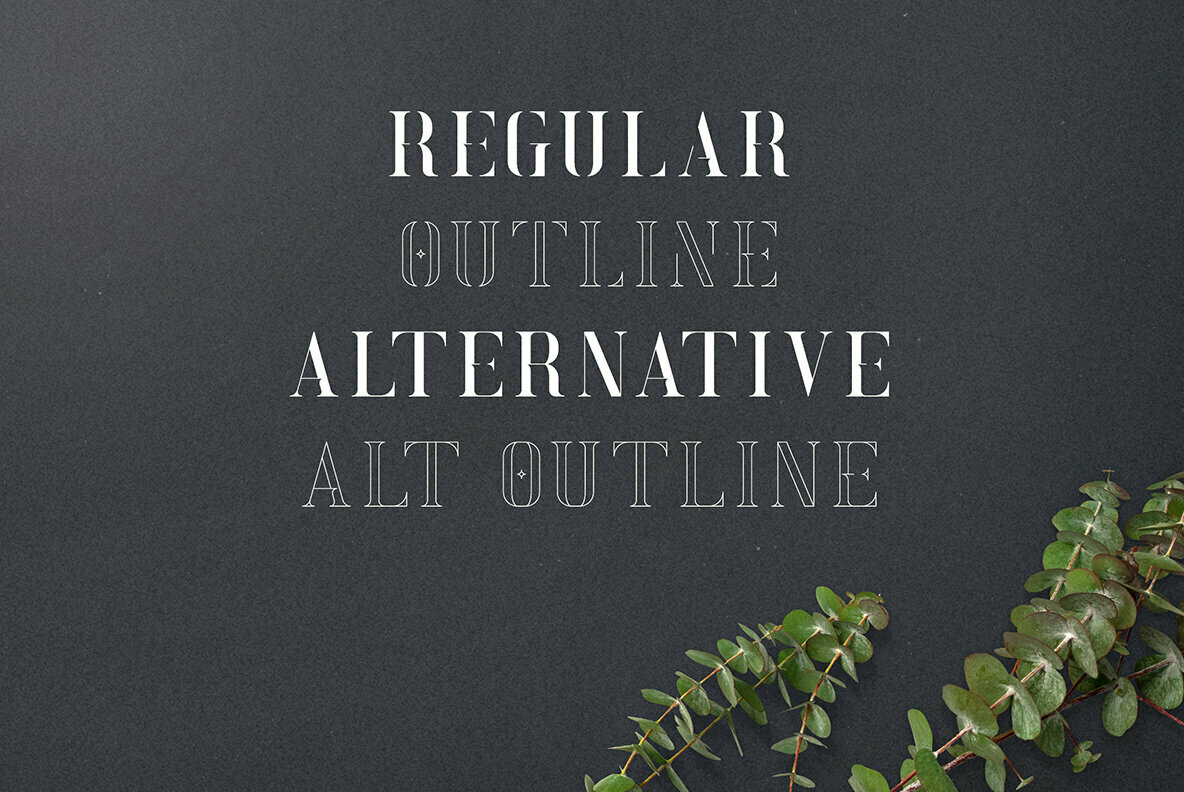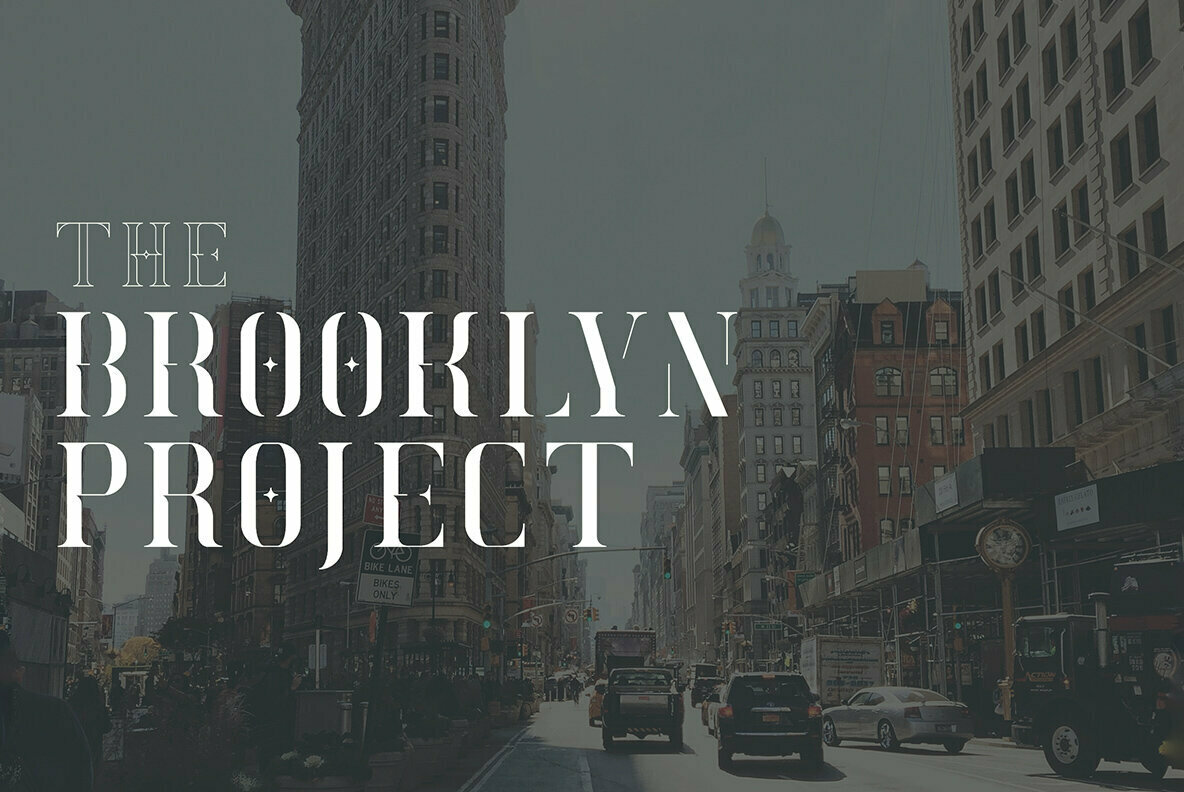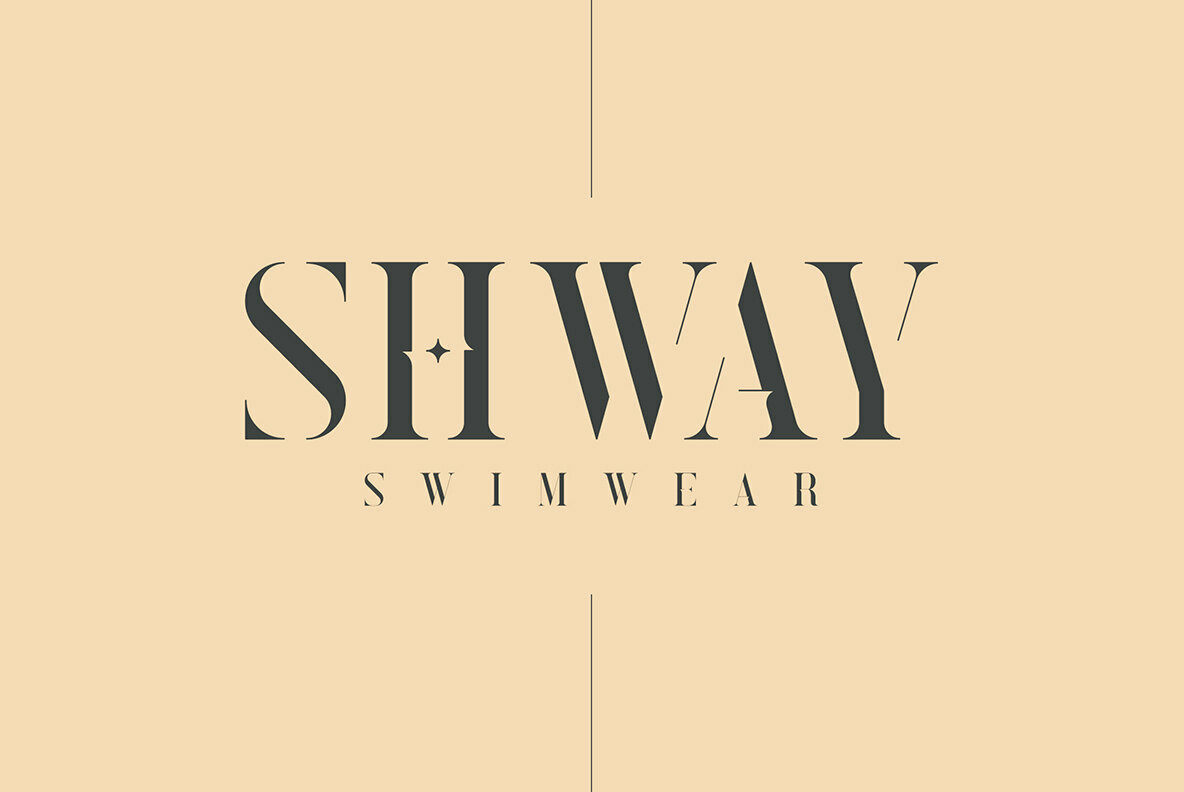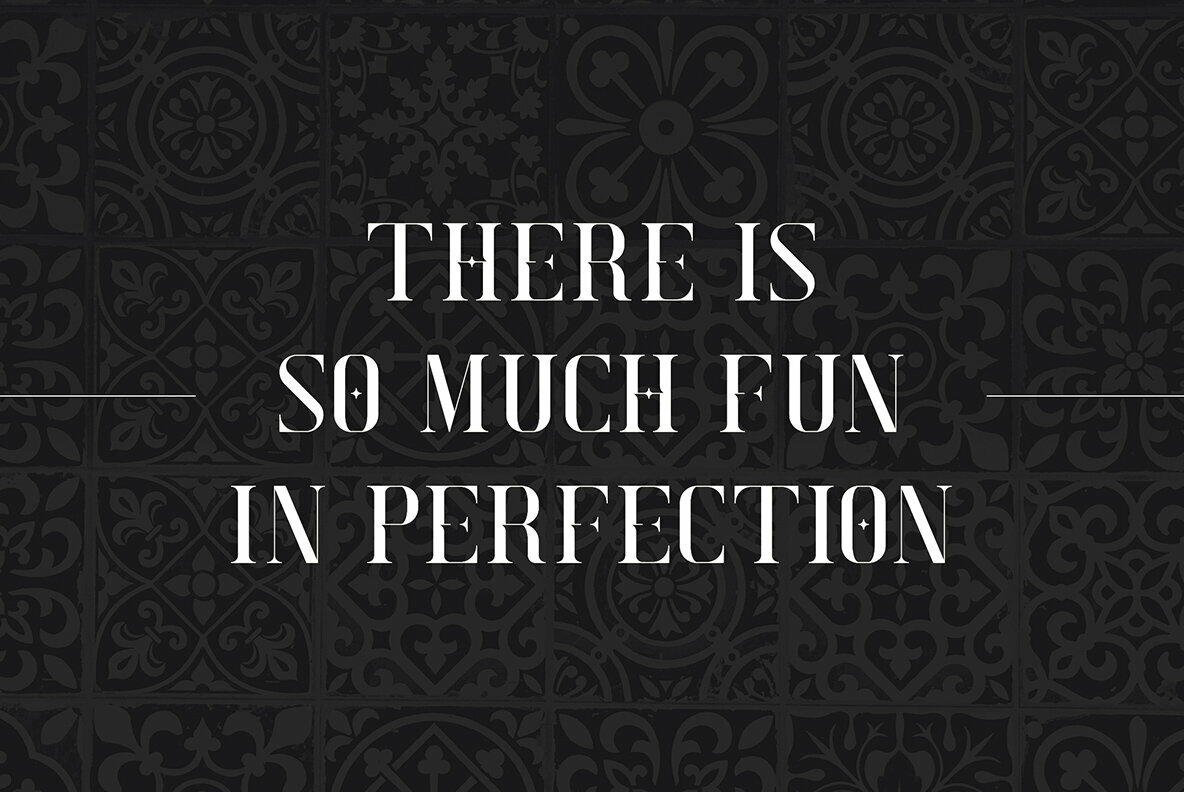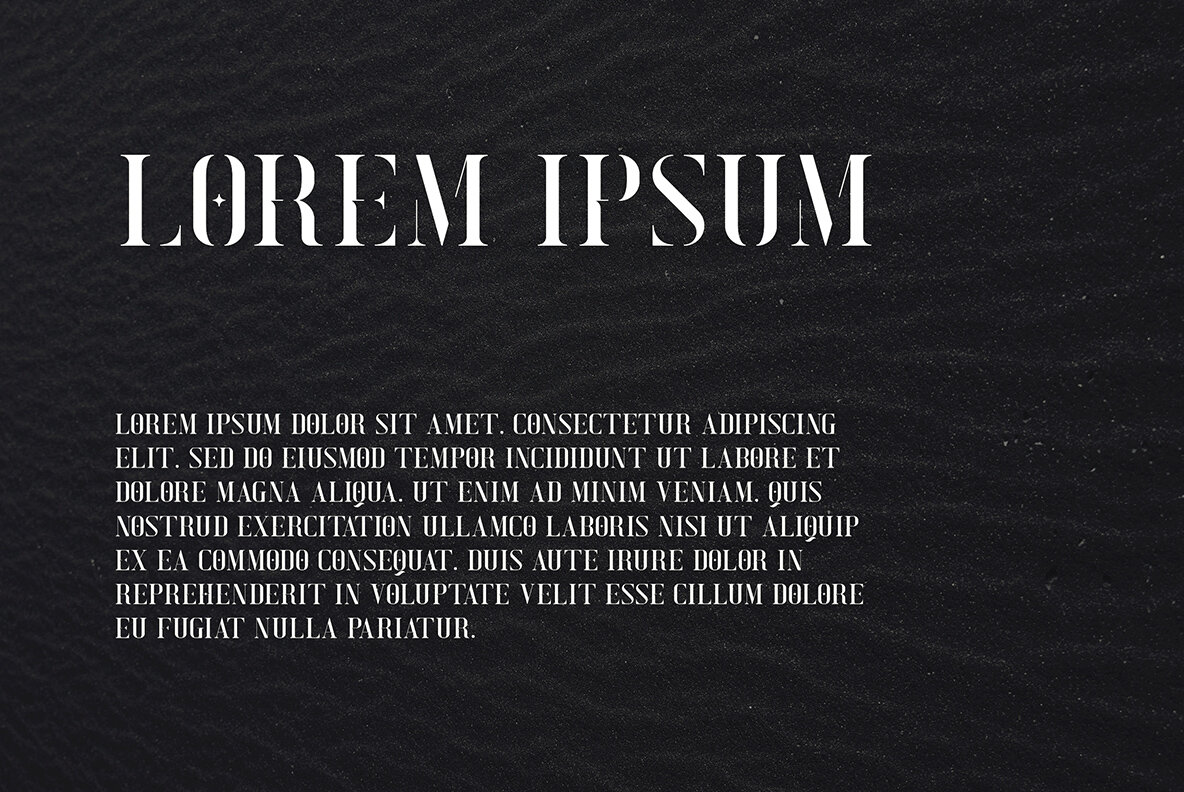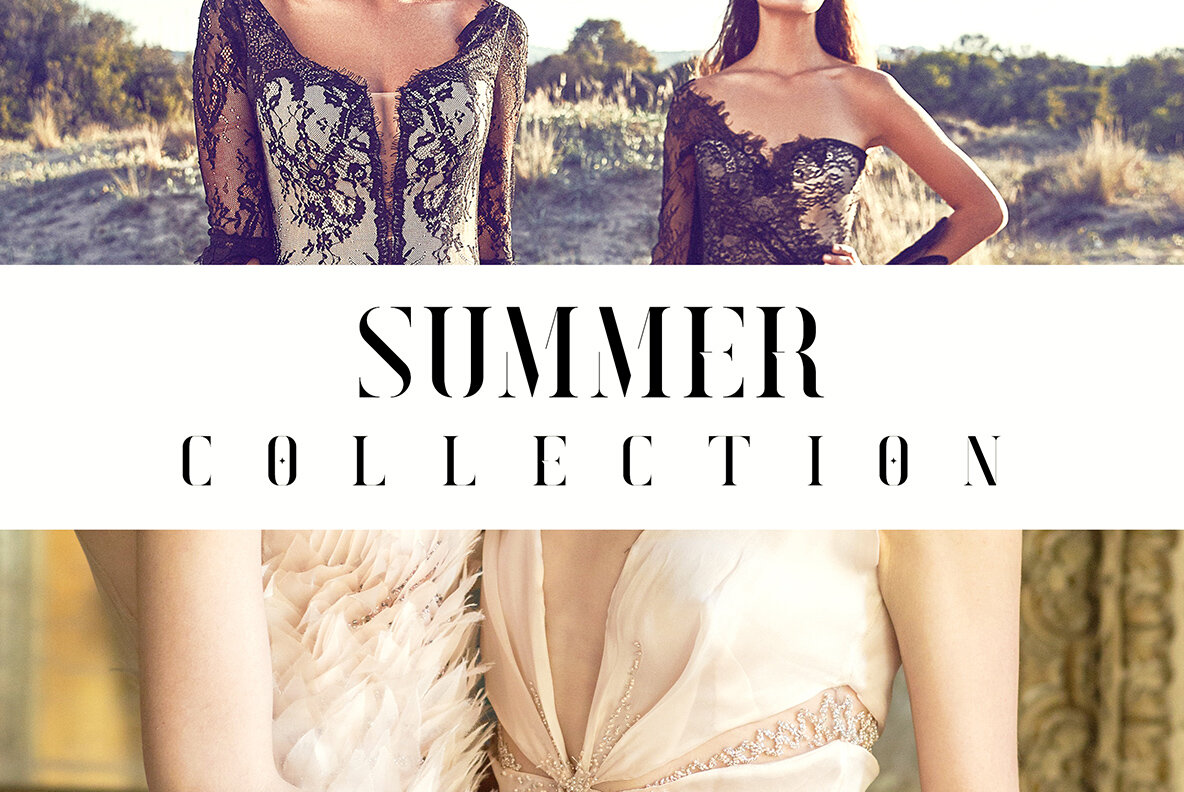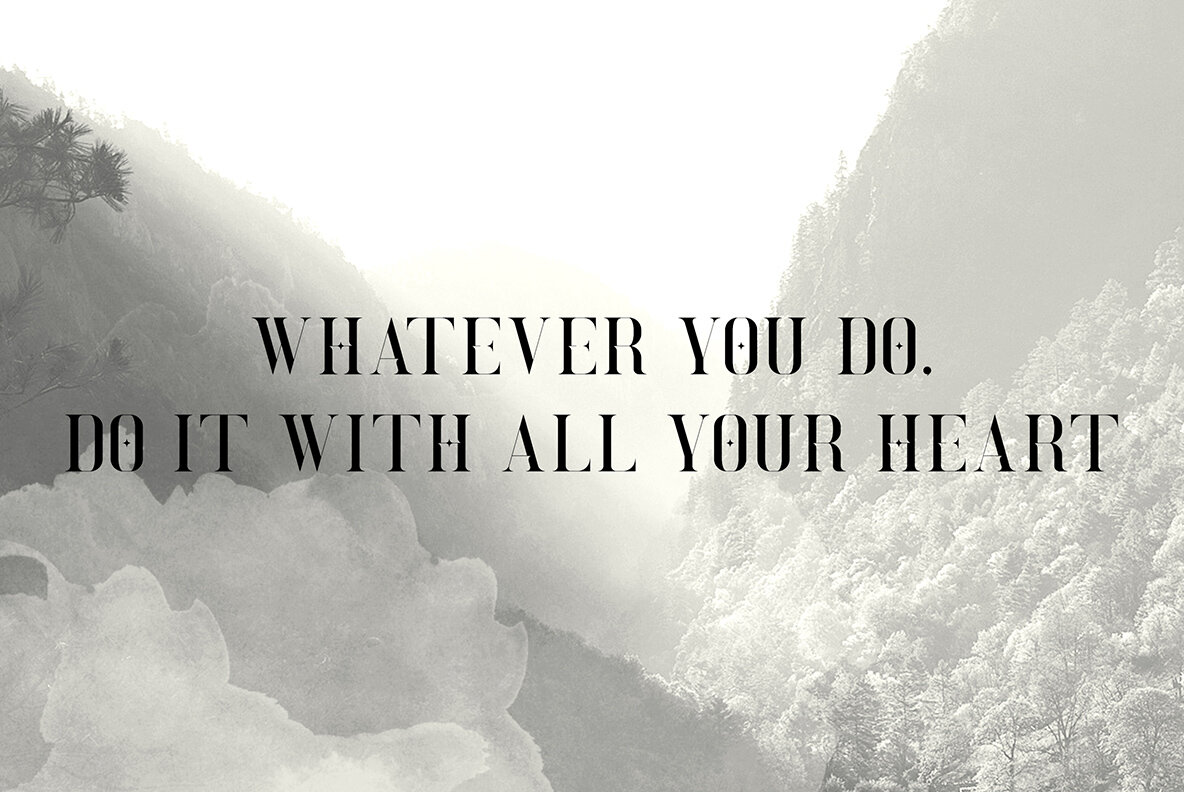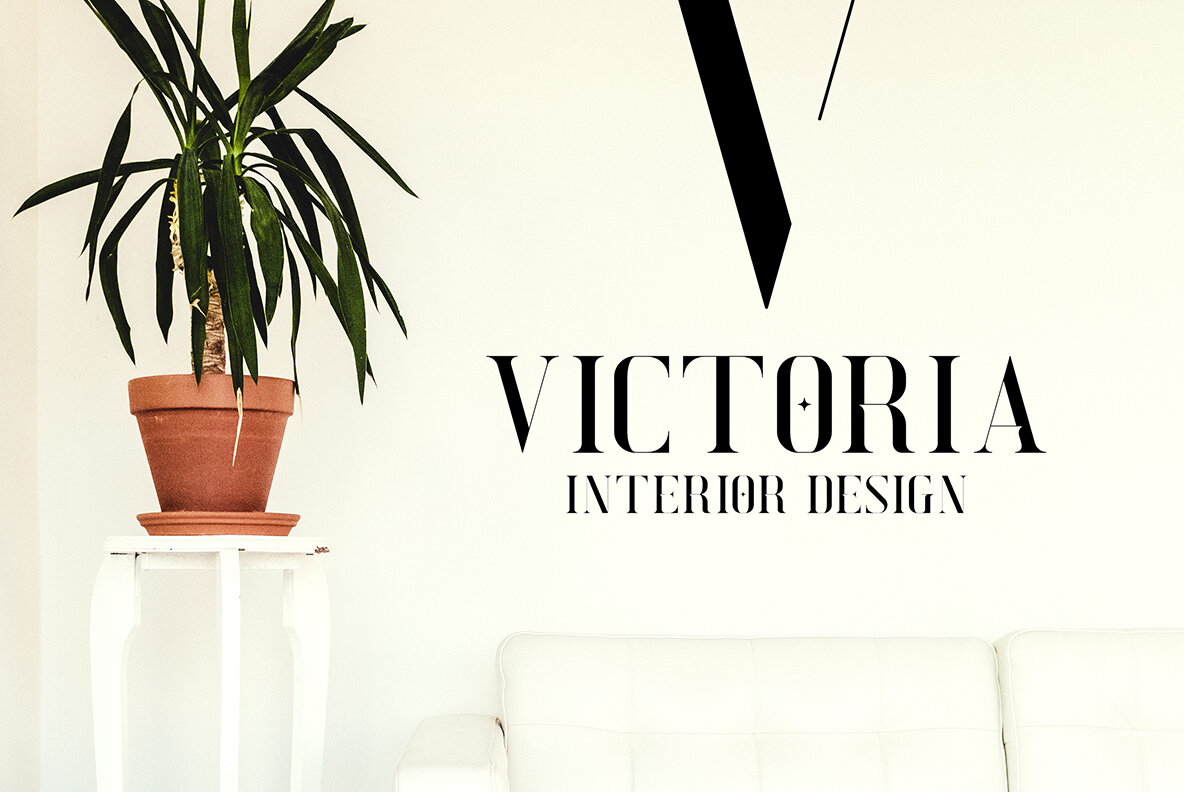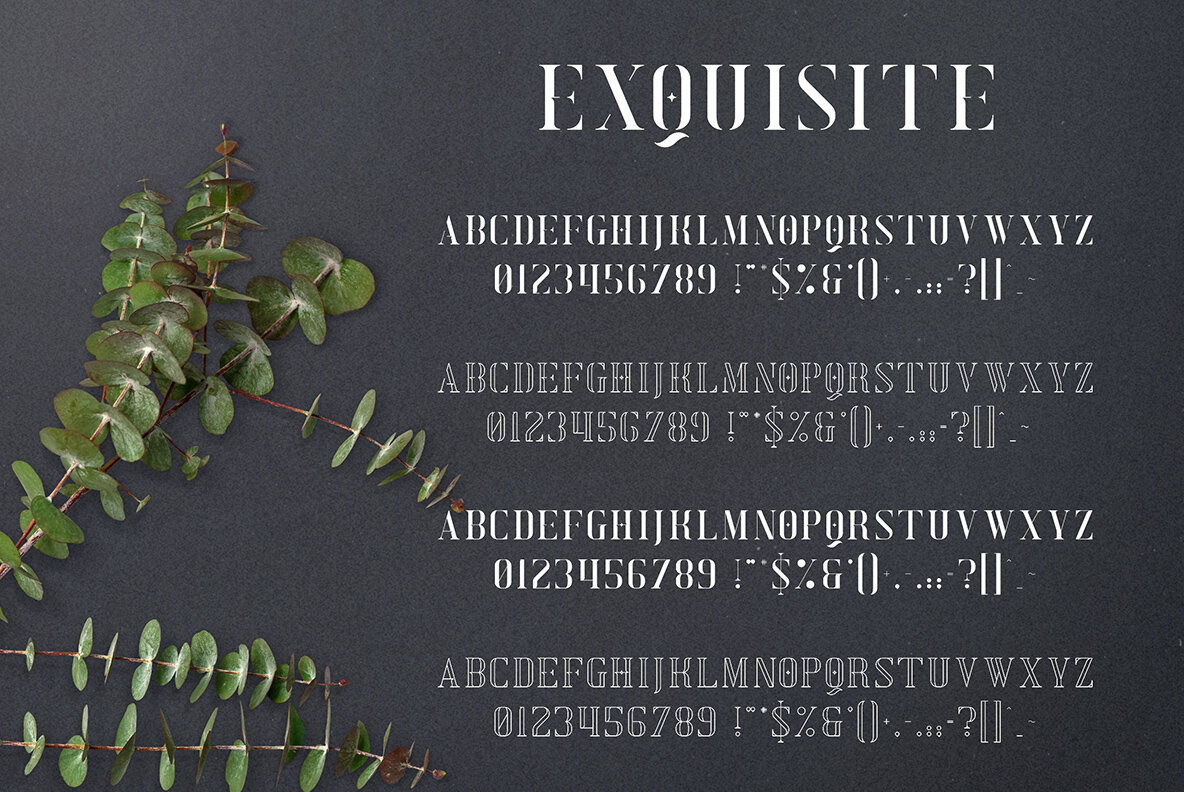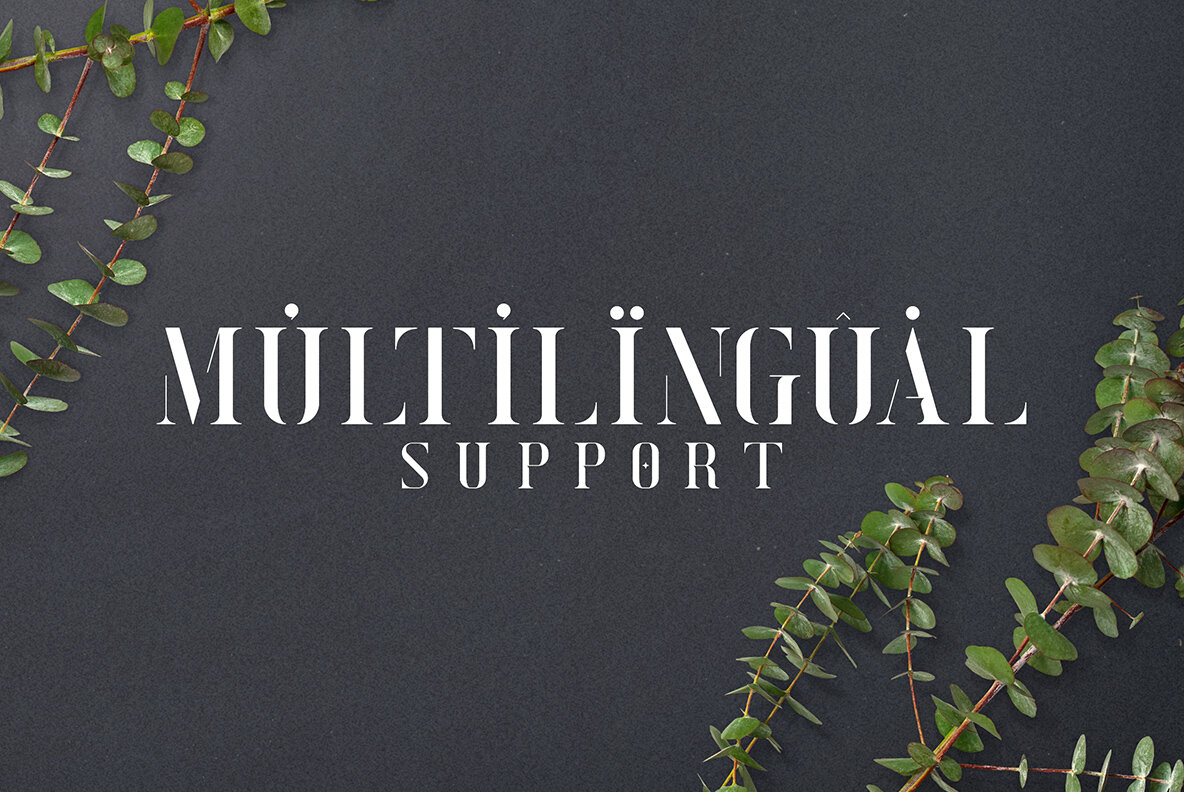
Exquisite Font
Exquisite Regular
Exquisite Alt
Exquisite Outline
Exquisite Alt Outline
The Exquisite typeface embodies a refined elegance and clarity, offering four distinct styles. With comprehensive multilingual support, this versatile font accommodates both large and small applications seamlessly. Perfectly suited for a range of creative projects, Exquisite enhances branding designs, enriches home-ware styles, elevates product packaging, and commands attention as magazine headers. Whether used as a sophisticated text overlay or a defining brand element, Exquisite adapts effortlessly to various visual contexts.Exquisite: Elegant Serif Typeface in Four Styles